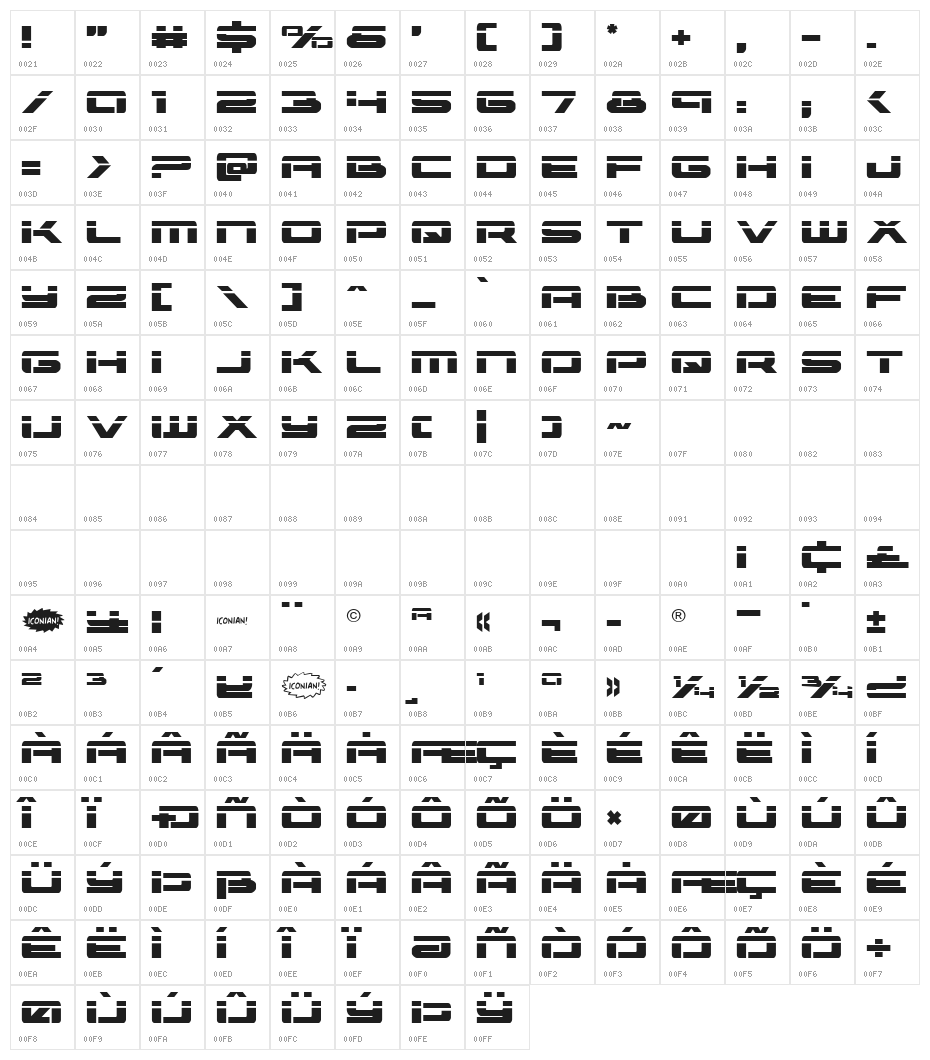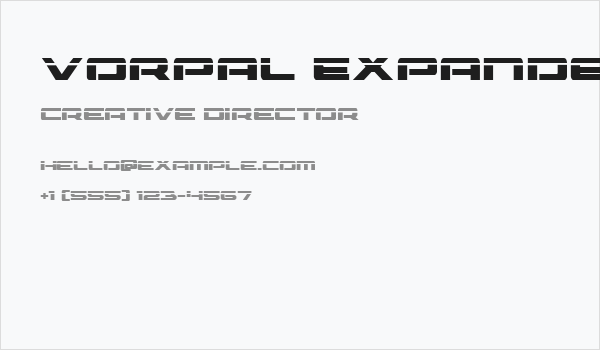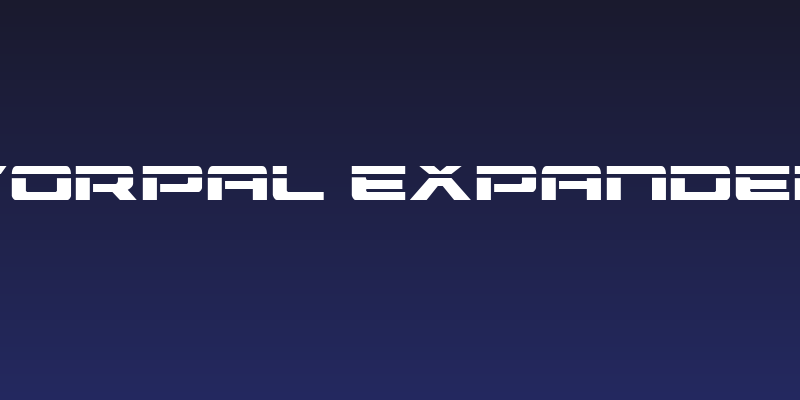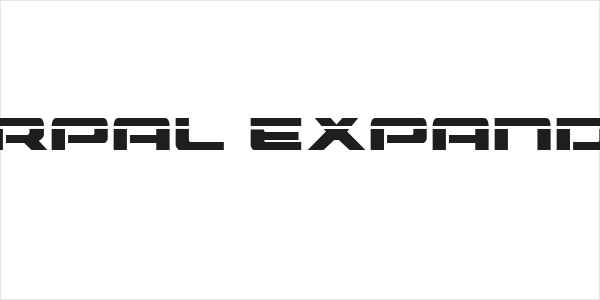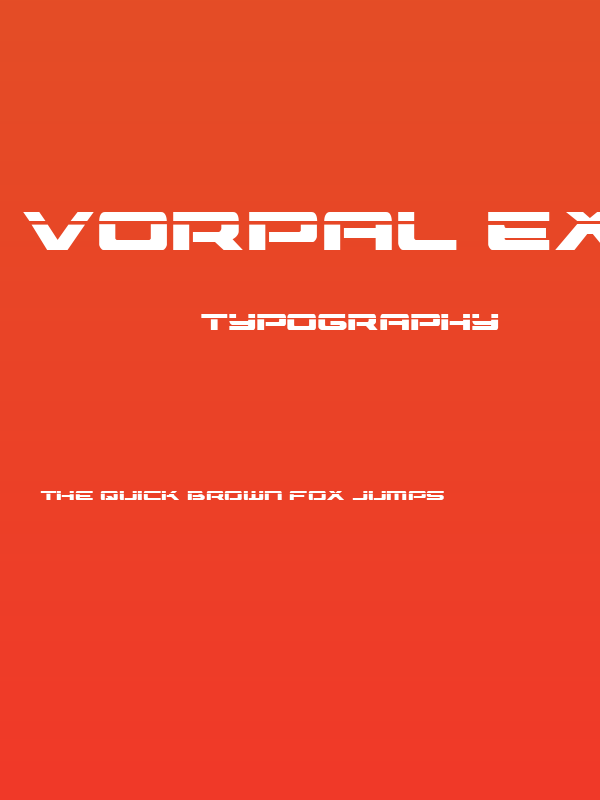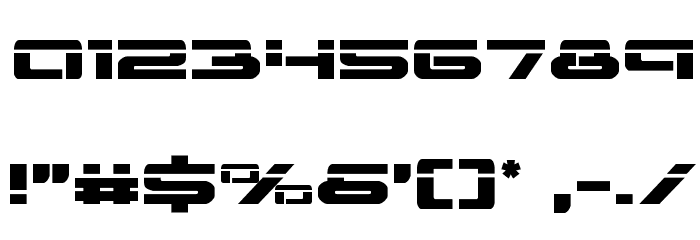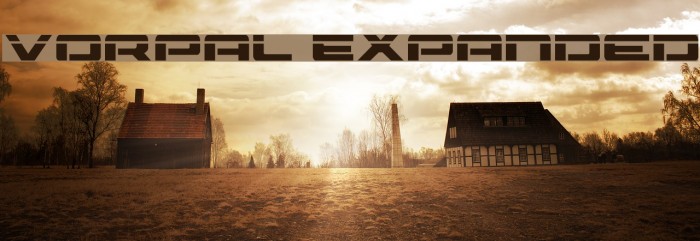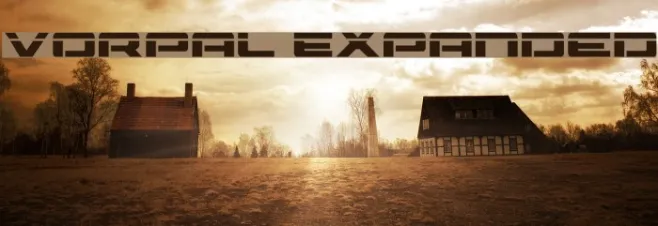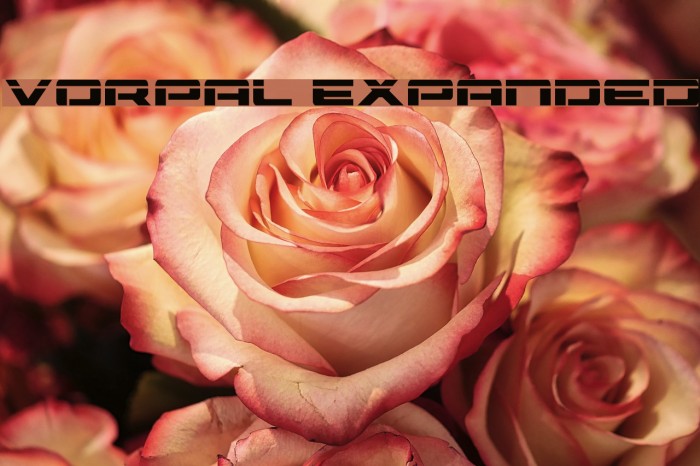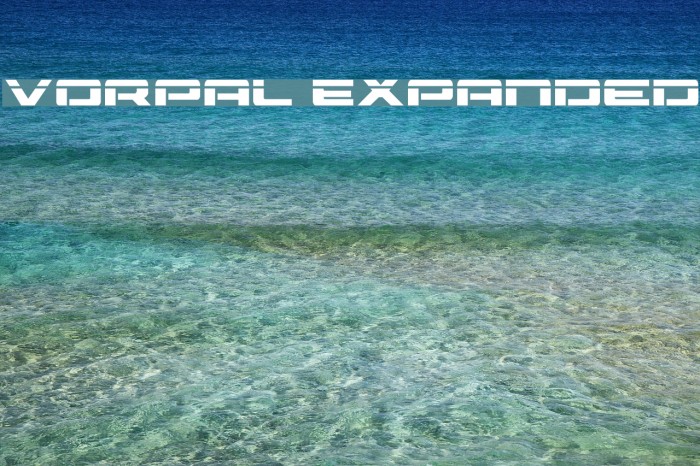
Vorpal Expanded Font
Vorpal Expanded Description
This font features a futuristic and bold design with a distinctly geometric and angular style. The characters are constructed with sharp edges and straight lines, giving it a modern and tech-inspired appearance. The uppercase and lowercase letters maintain a consistent height, contributing to a uniform look. The numerals and special characters follow the same design principles, ensuring a cohesive visual identity. The font's expanded width allows for a strong presence, making it suitable for attention-grabbing headlines and titles. Its unique style is ideal for projects that require a contemporary and edgy aesthetic.
| Proposed Projects | Ideal for sci-fi themed designs, technology branding, video game titles, and modern posters. |